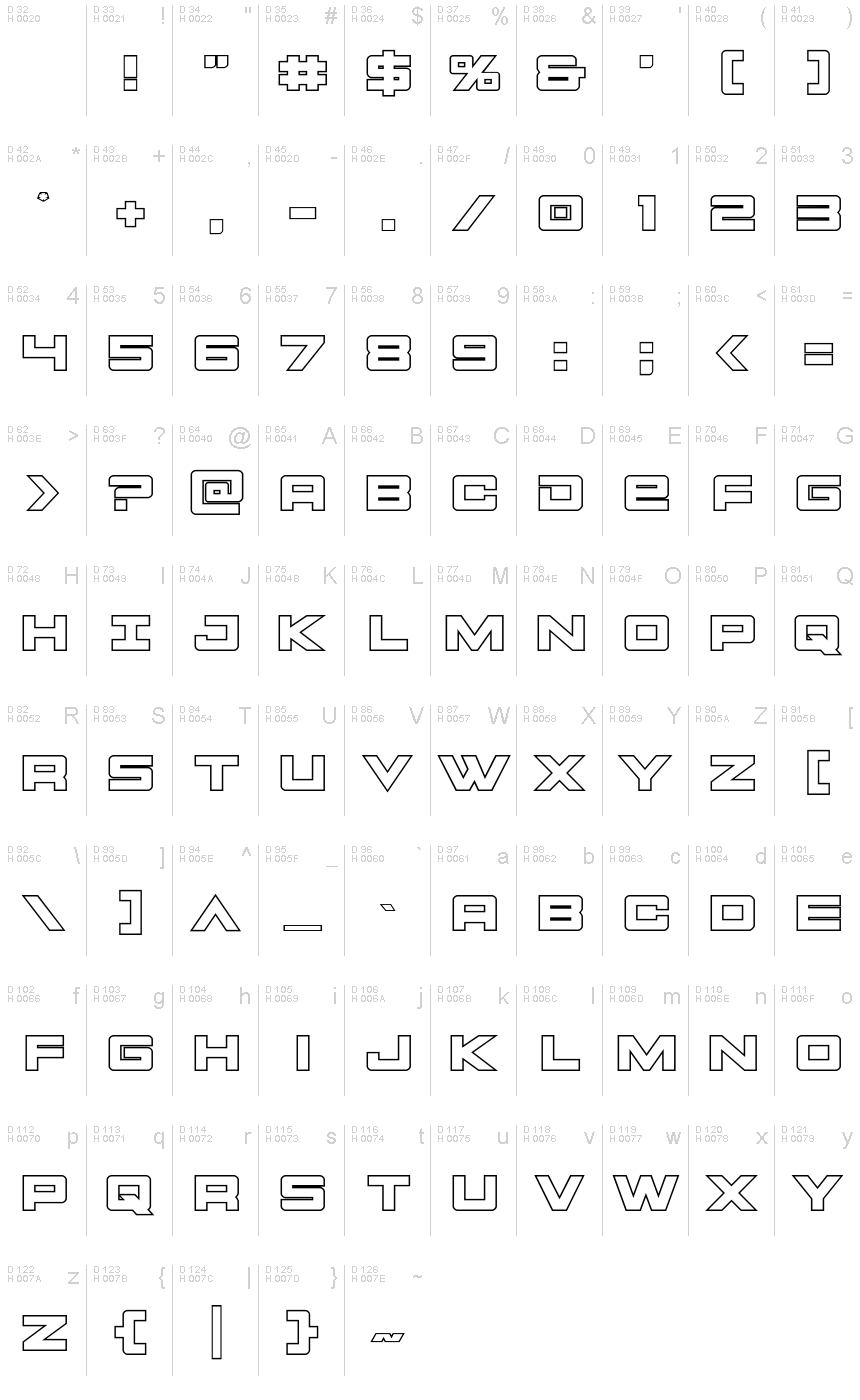
Montroc Outline
Montroc is a bold, futuristic display font that commands attention with its distinct outlined design and expanded width. Created by the renowned font designer Daniel Zadorozny of Iconian Fonts, this font exudes a sense of strength and modernity. Its striking visual impact makes it an ideal choice for headers, titles, and branding applications that require a bold, attention-grabbing aesthetic.
The expanded letterforms and well-defined outlines of Montroc lend it a sense of solidity and impact, making it well-suited for use in a variety of digital and print mediums, from websites and posters to packaging and event materials. Its versatility allows designers to leverage its unique character to create visually compelling and impactful designs across a range of industries and applications.